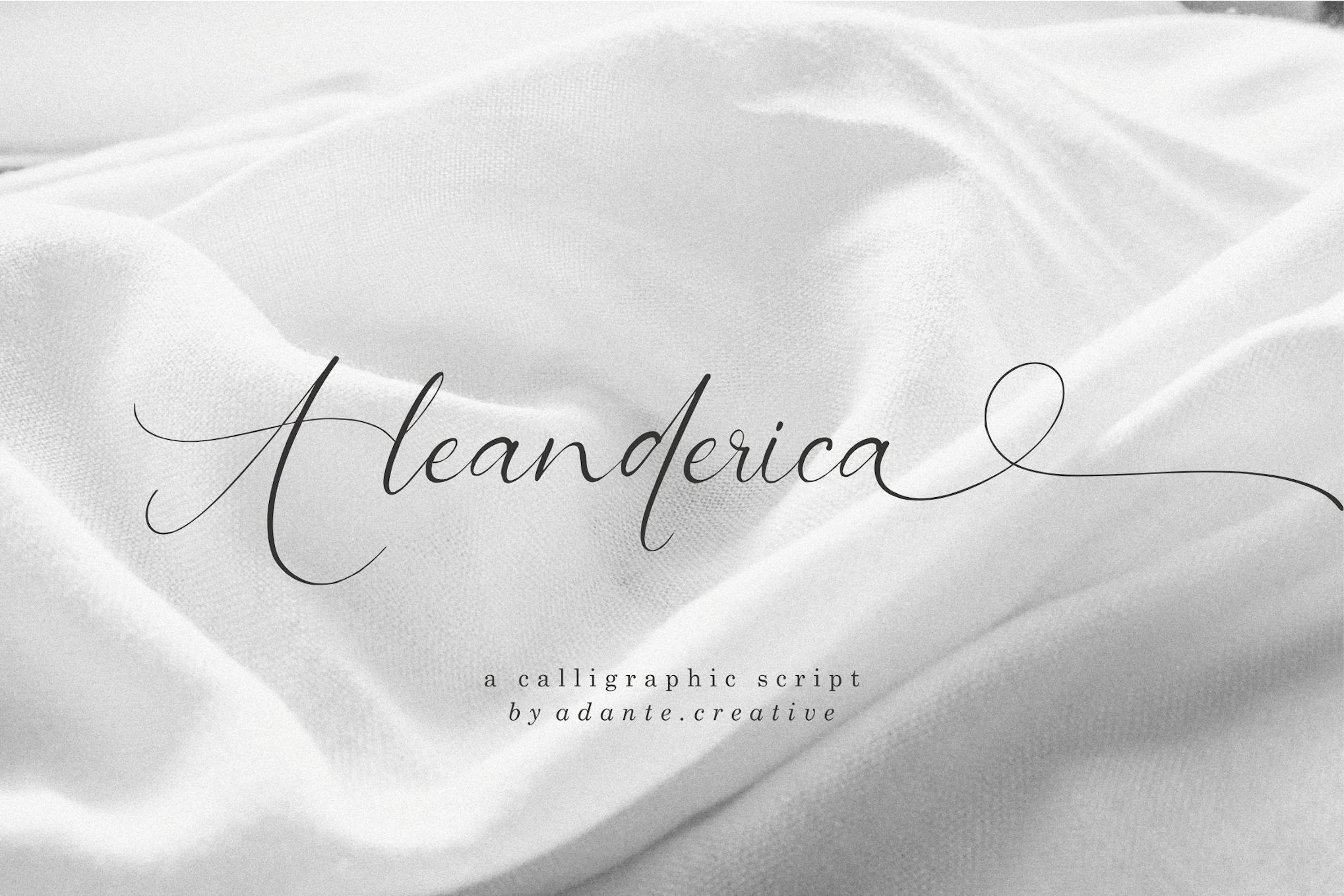
AC - Aleanderica Font
Aleanderica is a Calligraphy Script is classy commonly used for formal events such as weddings, graduations, and award ceremonies. It adds a sense of importance and elegance to the occasion. And used for signatures, invitations, certificates, and other documents where aesthetic appeal is desired. This font includes OTF, TTF & Woff Software that you can use to use this font: Adobe Illustrator, Adobe Photoshop, Microsoft Word, Corel Draw, And Inkscape, etc.